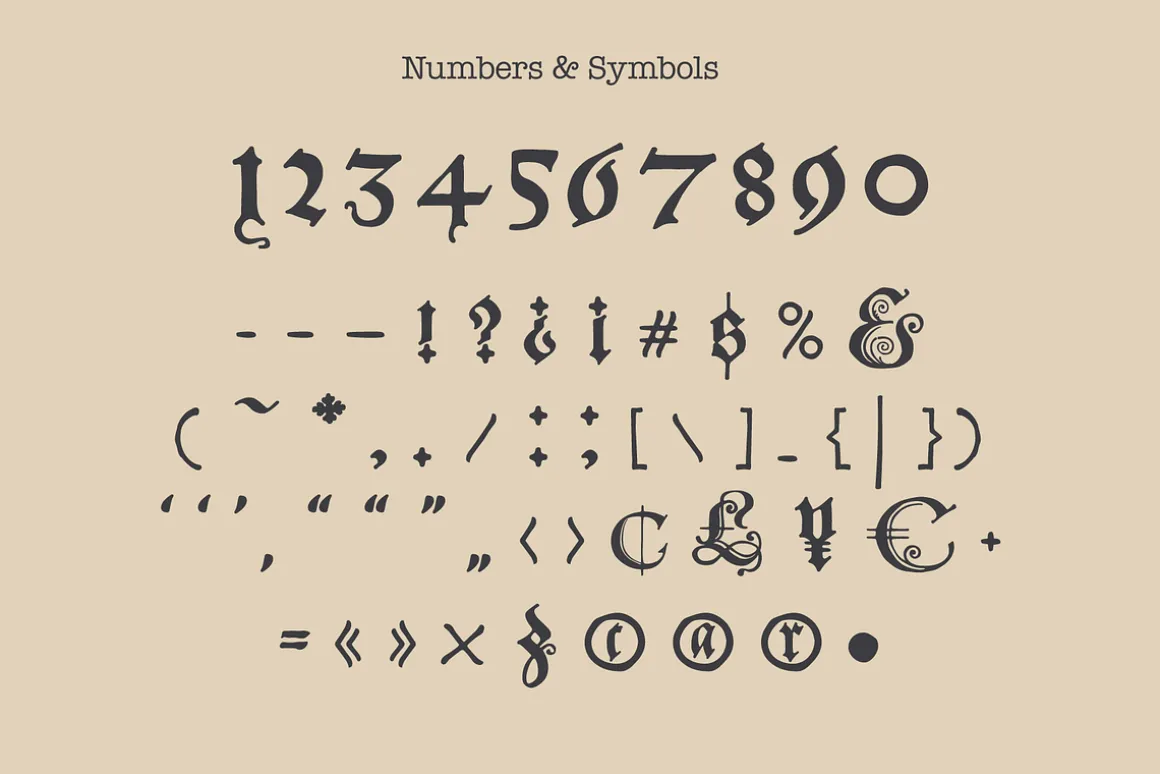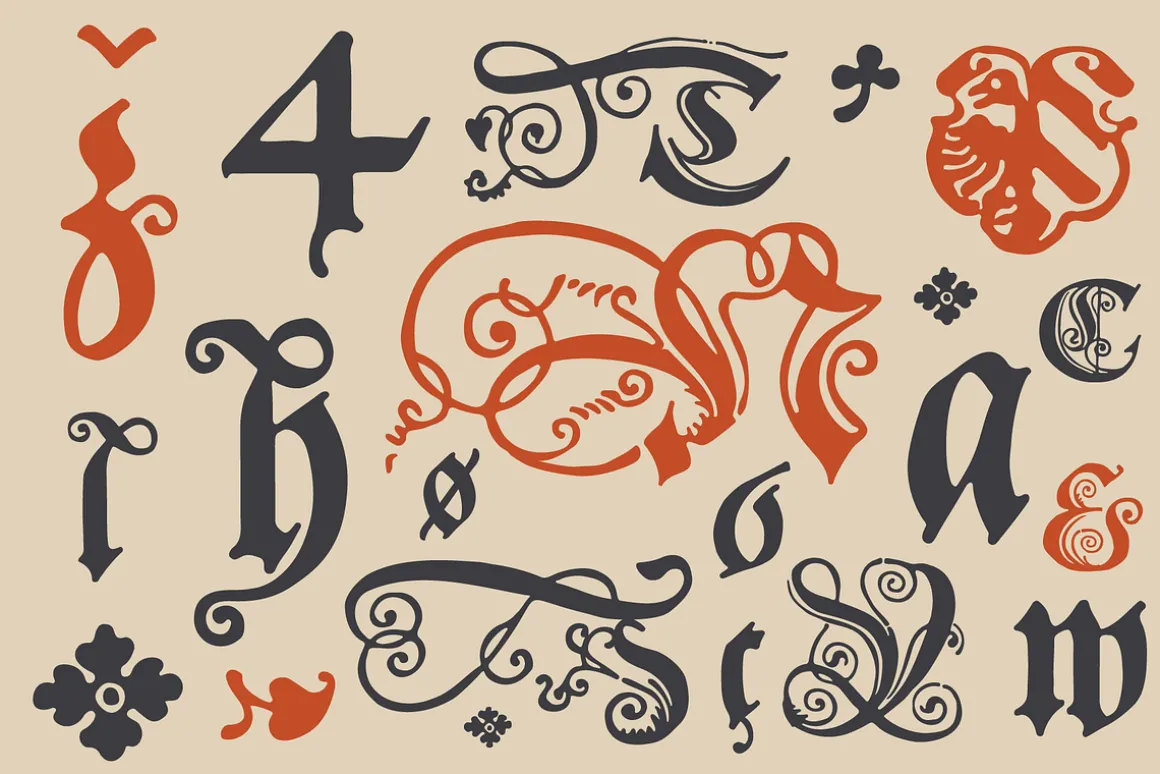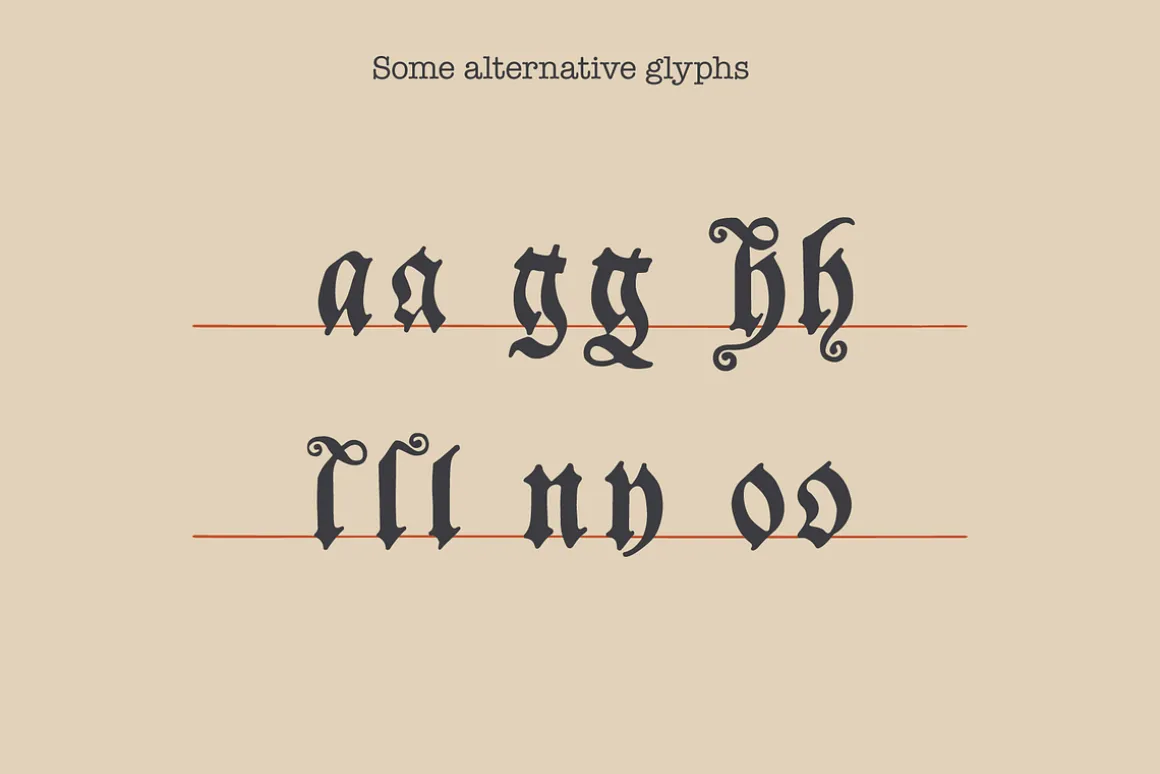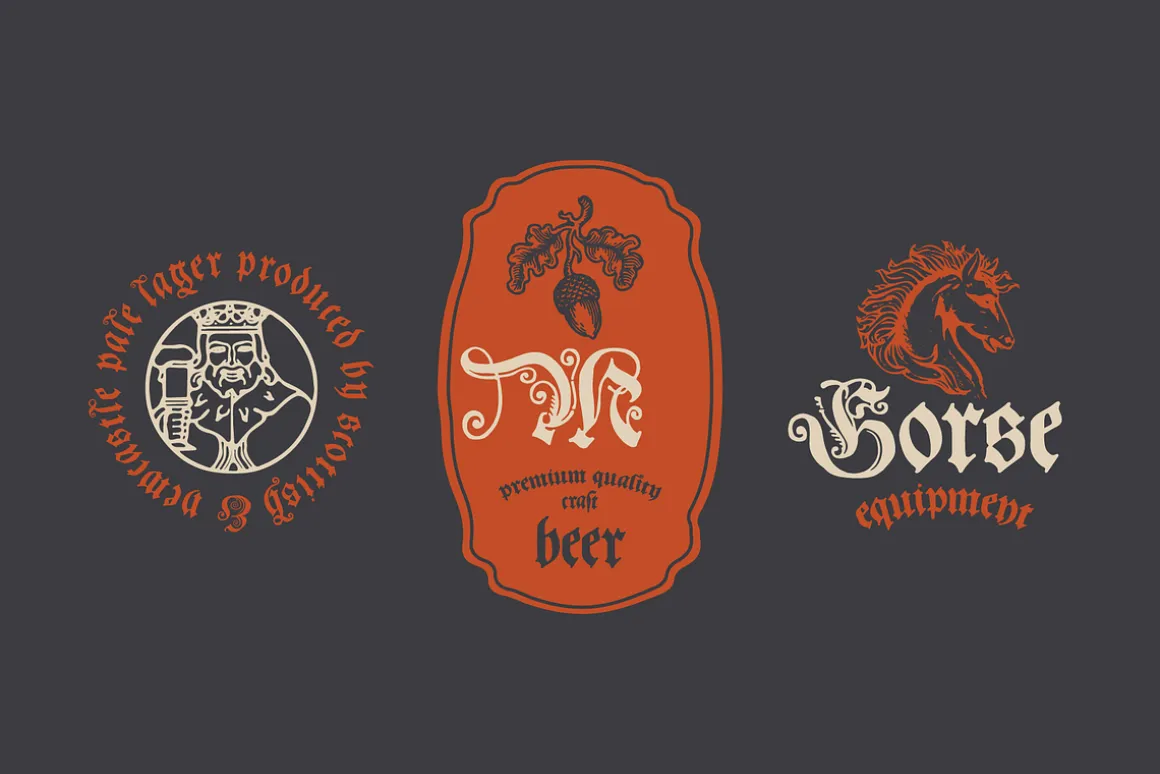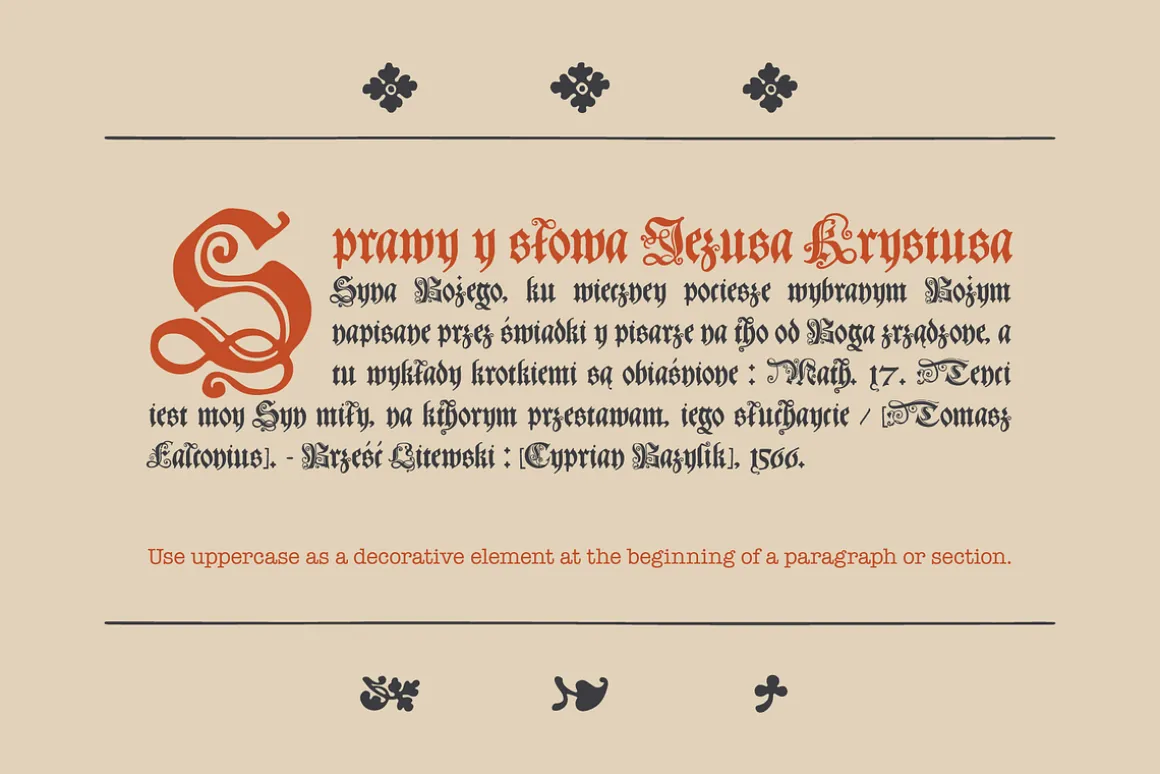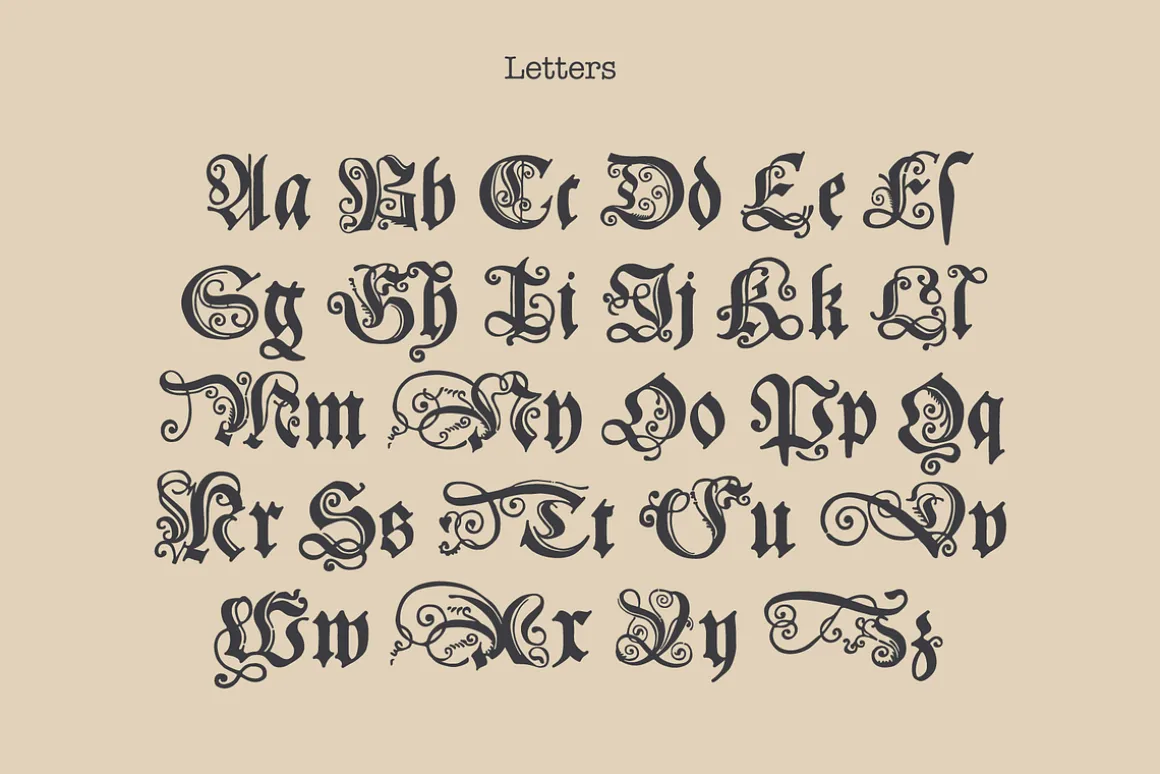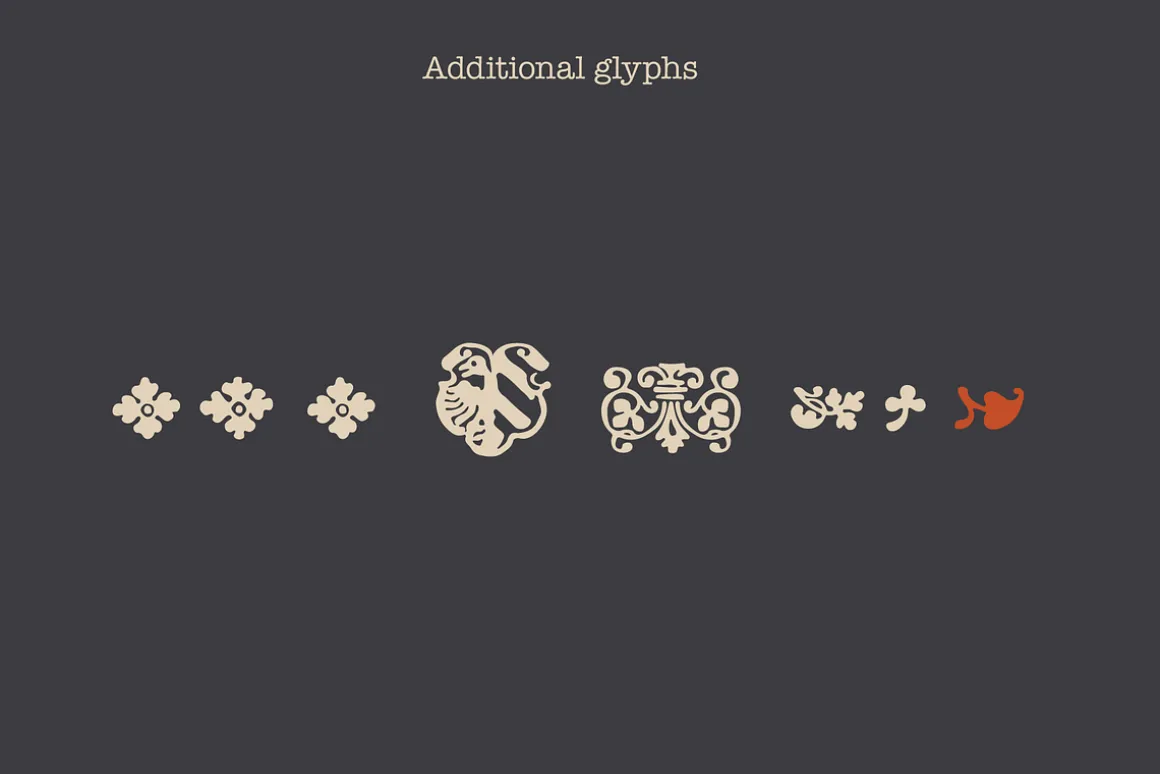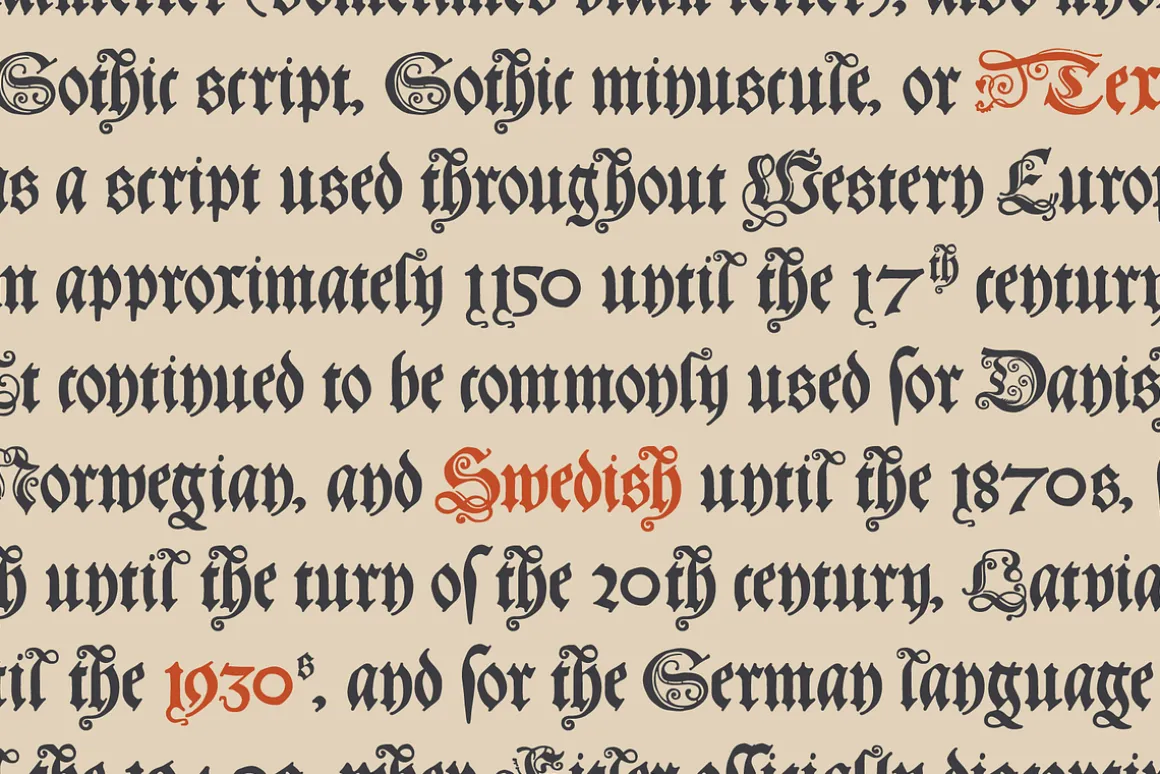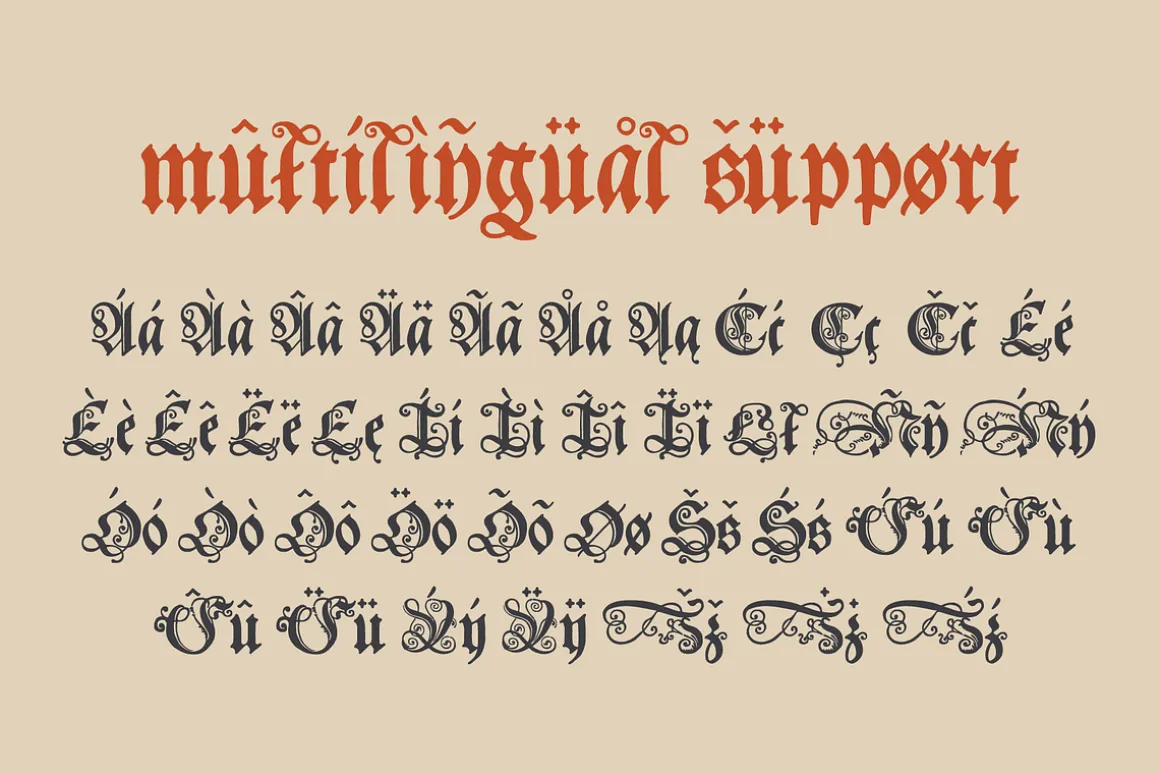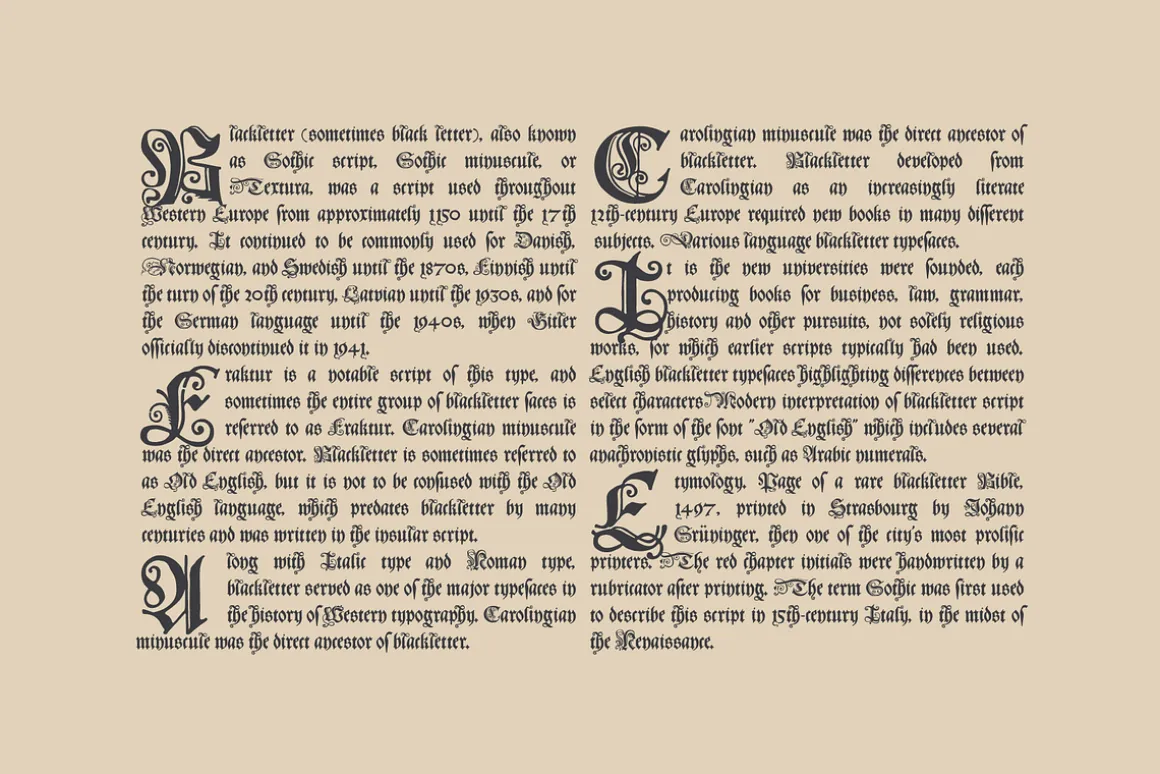
Hello! Here is a story of this font. It began a start from medieval Poland. The Brest printing house was organized on the initiative and at the expense of the famous figure of the Grand Duchy of Lithuania, Prince Nikolai Radziwill.
In 1566 the Protestant theologian Tomas Falconius published a book of commentaries on the New Testament “Sprawy y słowa Jezusa Krystusa Syna Bożego” it means “The Matters and Words of Jesus Christ, the Son of God”. This book used Schwabacher as a main font.
Schwabacher is a specific style of blackletter typefaces which evolved from Gothic Textura under the influence of Humanist type design in Italy during the 15th century. Schwabacher typesetting was the most common typeface in Germany.
Similar to Rotunda, the rounded Schwabacher types were nearer to handwriting than the former Textualis style, though it also includes sharp edges.